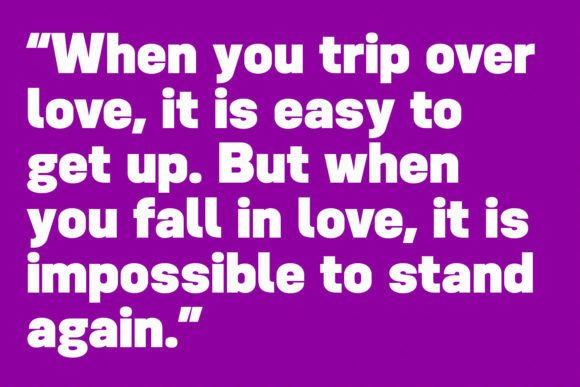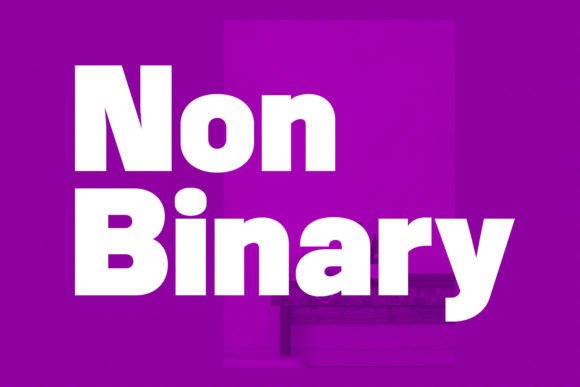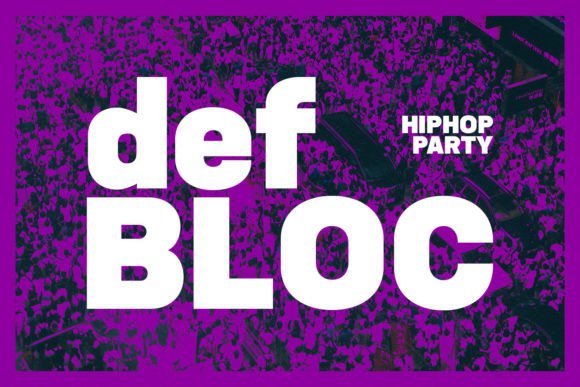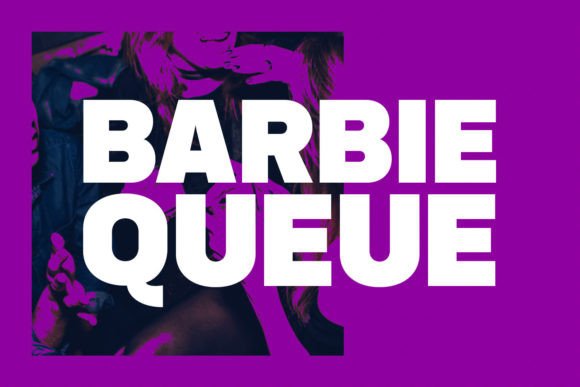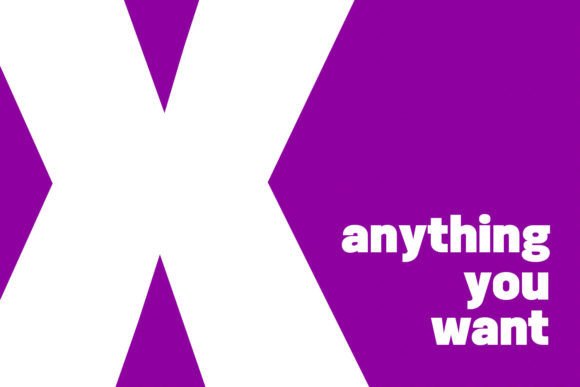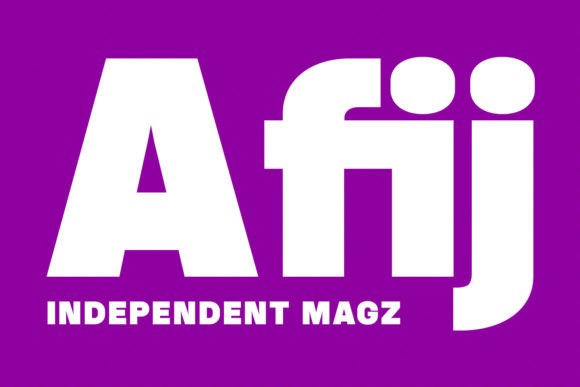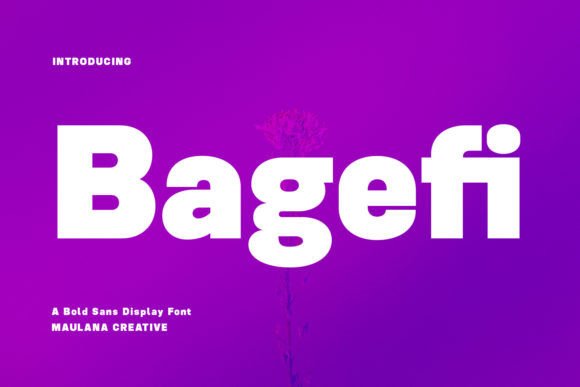
Bagefi Font: A Modern Sans Serif Display Font for Versatile Designs
In the world of typography, a font can make or break a design. With the numerous options available, finding the perfect font that suits your project’s needs can be overwhelming. However, if you’re looking for a modern sans serif display font that is incredibly versatile, look no further than Bagefi Font. In this article, we’ll dive into the features and benefits of Bagefi Font, and explore how it can elevate your designs.
What is Bagefi Font?
Bagefi Font is a modern sans serif display font designed to make a statement. Its clean and sleek lines make it perfect for a wide range of applications, from digital displays to print materials. The font’s versatility lies in its ability to adapt to various design contexts, making it an excellent choice for designers and crafters.
Key Features of Bagefi Font
- Modern Sans Serif Design: Bagefi Font boasts a contemporary sans serif design that exudes elegance and sophistication.
- Versatility: This font is designed to work well in a variety of contexts, including headings, titles, and short texts.
- Clean and Sleek Lines: The font’s clean and sleek lines ensure that your designs look crisp and professional.
- Easy to Read: Despite being a display font, Bagefi Font remains easy to read, even at smaller sizes.
Benefits of Using Bagefi Font
So, why choose Bagefi Font for your next project? Here are some benefits that make it an excellent choice:
- Enhance Your Brand’s Visual Identity: Bagefi Font can help you create a strong visual identity for your brand, making it more recognizable and memorable.
- Stand Out from the Crowd: With its unique design, Bagefi Font can help your designs stand out from the competition.
- Save Time: The font’s versatility means you can use it across multiple projects, saving you time and effort in the long run.
- Easy to Pair with Other Fonts: Bagefi Font pairs well with other fonts, making it easy to create a cohesive look for your designs.
Use Cases for Bagefi Font
Bagefi Font is suitable for a wide range of applications, including:
- Digital Displays: Use Bagefi Font for digital displays, such as website headers, social media graphics, and mobile app interfaces.
- Print Materials: The font is perfect for print materials, including brochures, posters, and business cards.
- Headings and Titles: Bagefi Font is ideal for headings and titles, adding a touch of elegance and sophistication to your designs.
- Crafting and DIY Projects: Crafters and DIY enthusiasts can use Bagefi Font for various projects, such as making signs, labels, and cards.
Tips for Using Bagefi Font
To get the most out of Bagefi Font, here are some tips to keep in mind:
- Experiment with Font Sizes: Try out different font sizes to see how Bagefi Font works in various contexts.
- Play with Colors: Experiment with different colors to find the perfect combination that suits your design.
- Pair with Other Fonts: Don’t be afraid to pair Bagefi Font with other fonts to create a unique look.
In conclusion, Bagefi Font is a modern sans serif display font that offers versatility, elegance, and sophistication. Its clean and sleek lines make it perfect for a wide range of applications, from digital displays to print materials. With its ease of use and flexibility, Bagefi Font is an excellent choice for designers and crafters looking to elevate their designs. Try Bagefi Font today and experience the difference it can make in your projects!